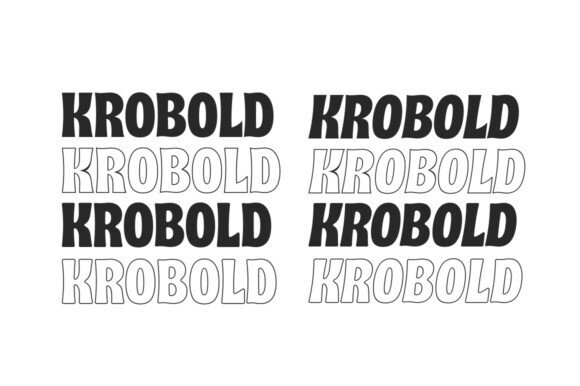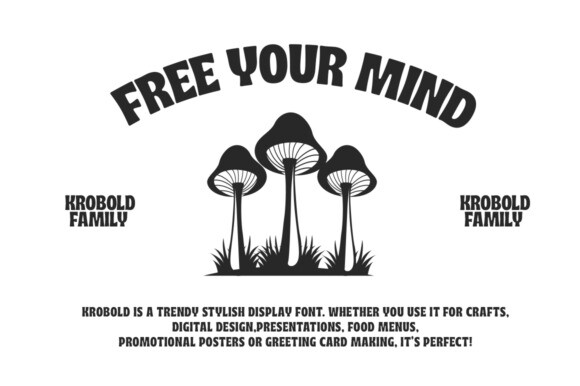
Krobold Font
Designer: AM Designs
Krobold Font is a bold and assertive sans serif font. No matter the topic, this font will be an incredible asset to your fonts’ library, as it has the potential to elevate any creation.